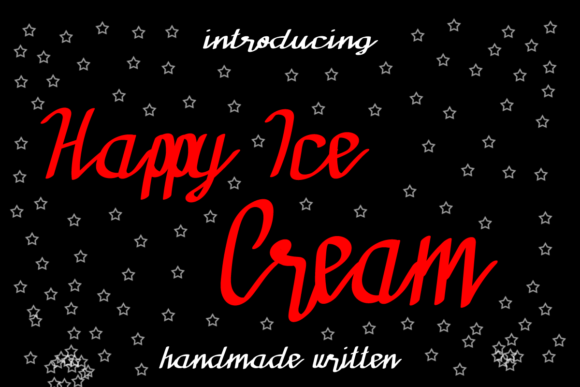
Discover the enchanting world of Happy Ice Cream – a whimsical and charming script font that will bring a smile to your face and a touch of sweetness to your designs!
Happy Ice Cream is the perfect font for adding a dash of joy and playfulness to your projects. Its meticulously crafted curves and delightful details will make your words dance off the page. Ideal for invitations, posters, branding, social media posts – let your imagination run wild!
With Happy Ice Cream, you'll experience the freedom of cursive writing, without the hassle of putting pen to paper. Its smooth, flowing strokes will make your words look effortlessly elegant, adding a touch of warmth and authenticity to your designs.